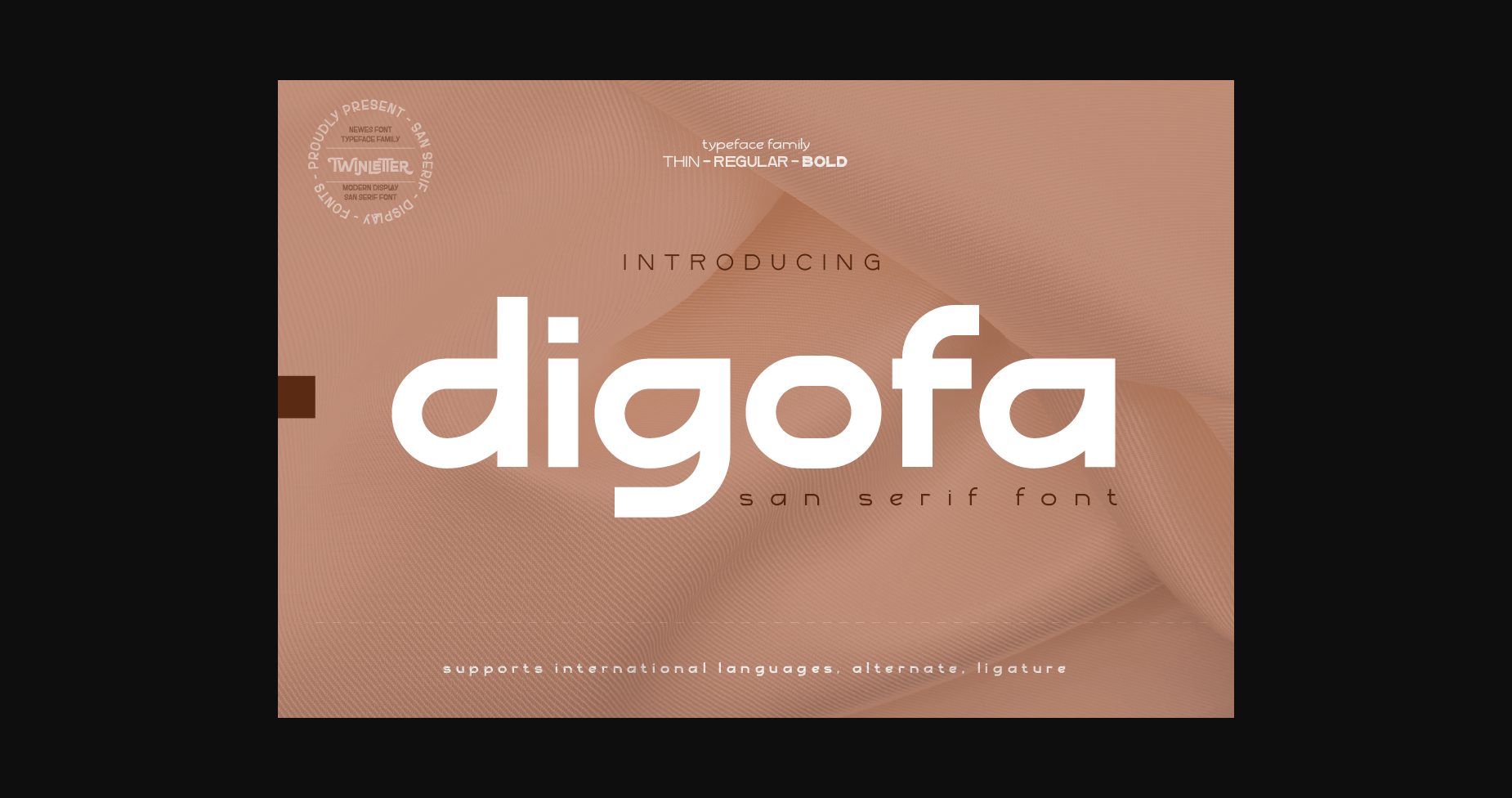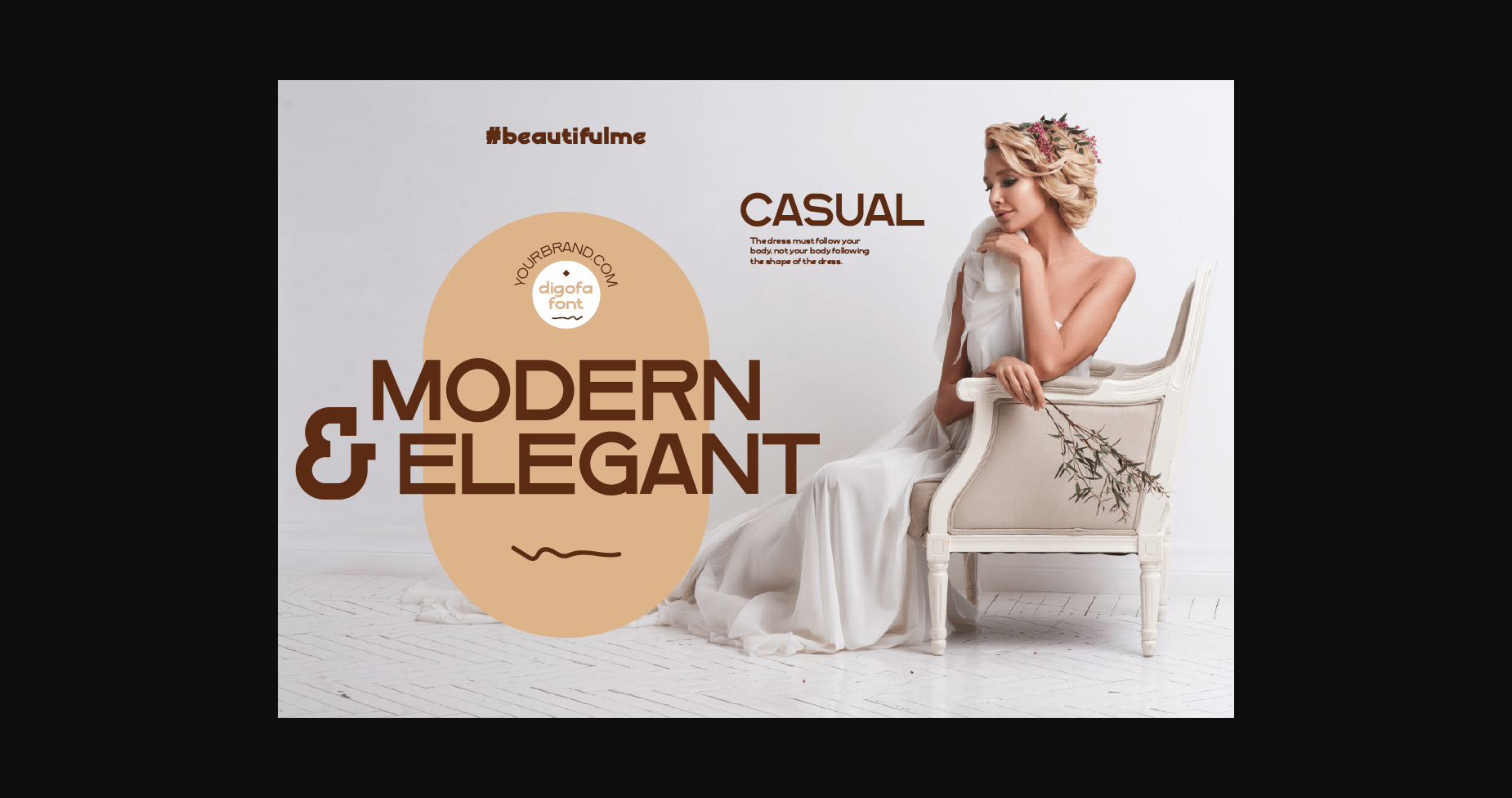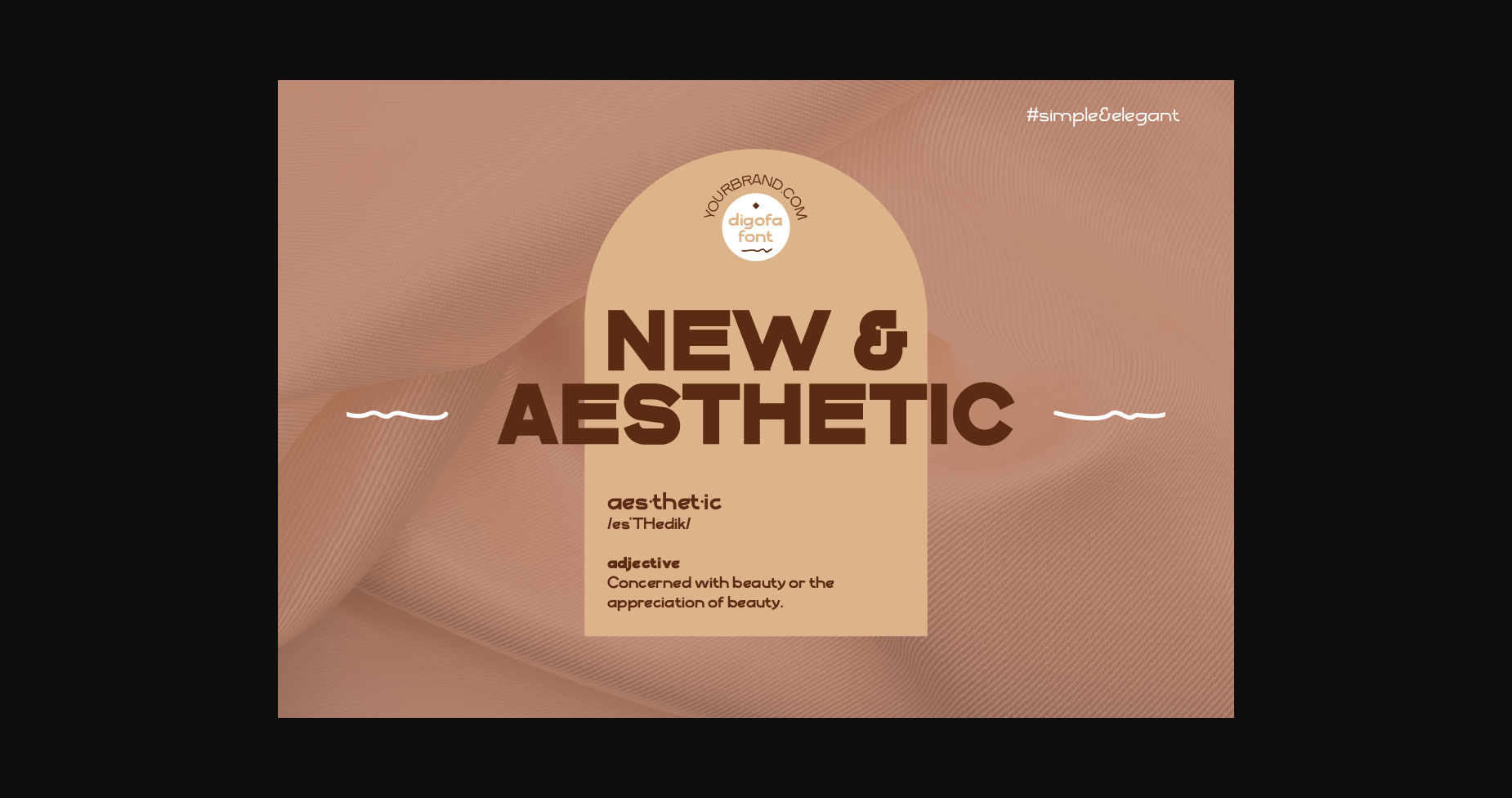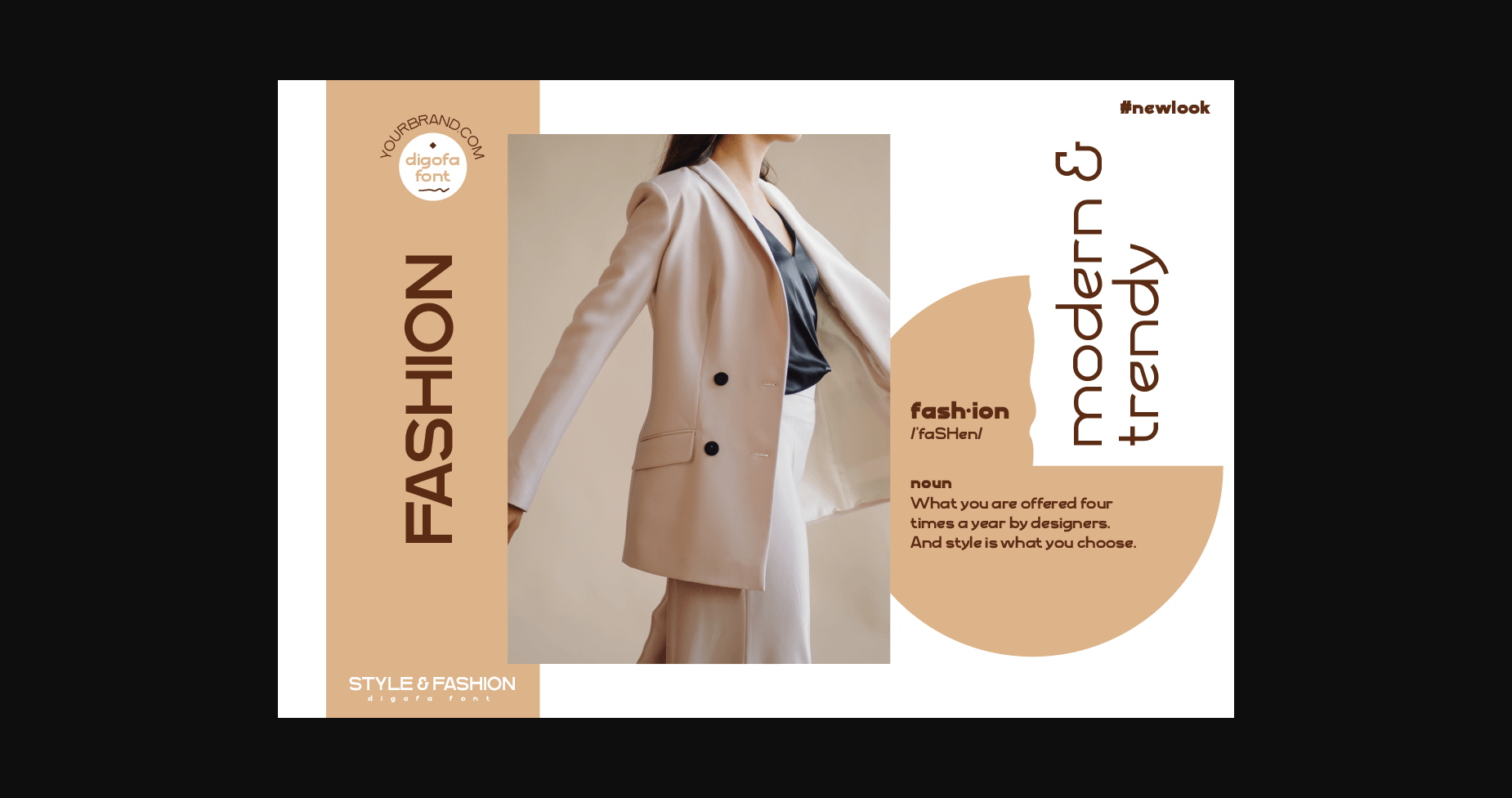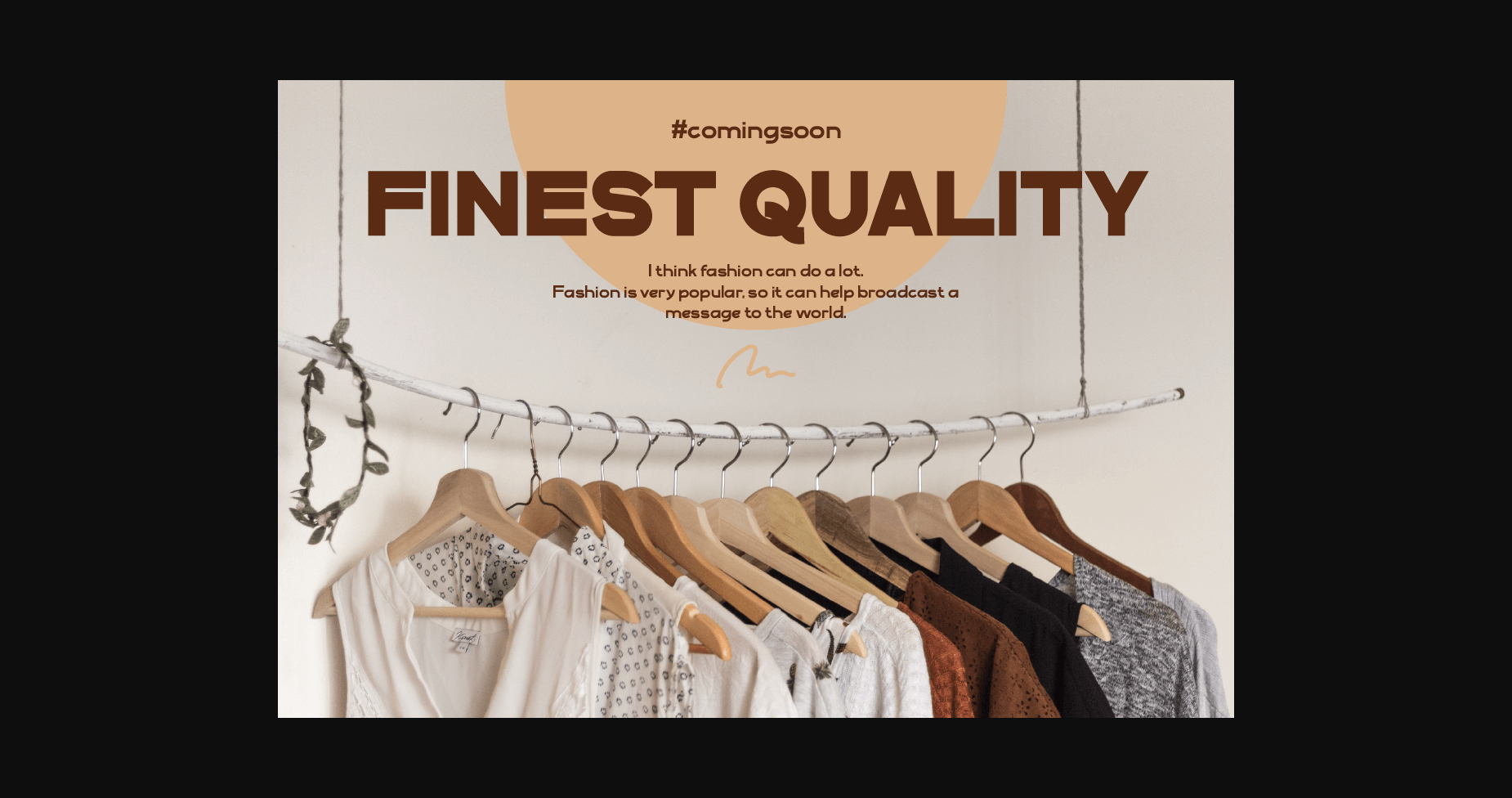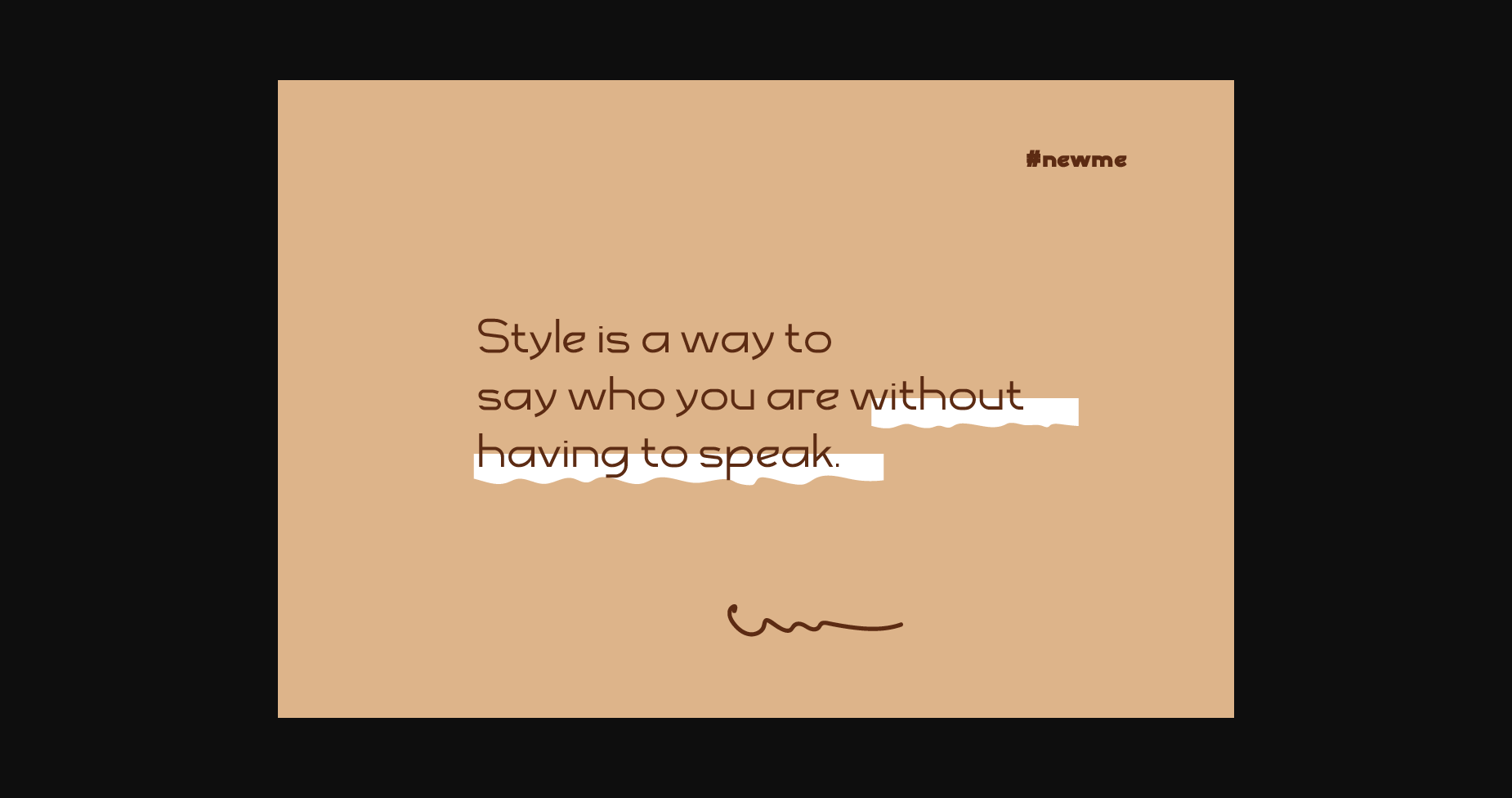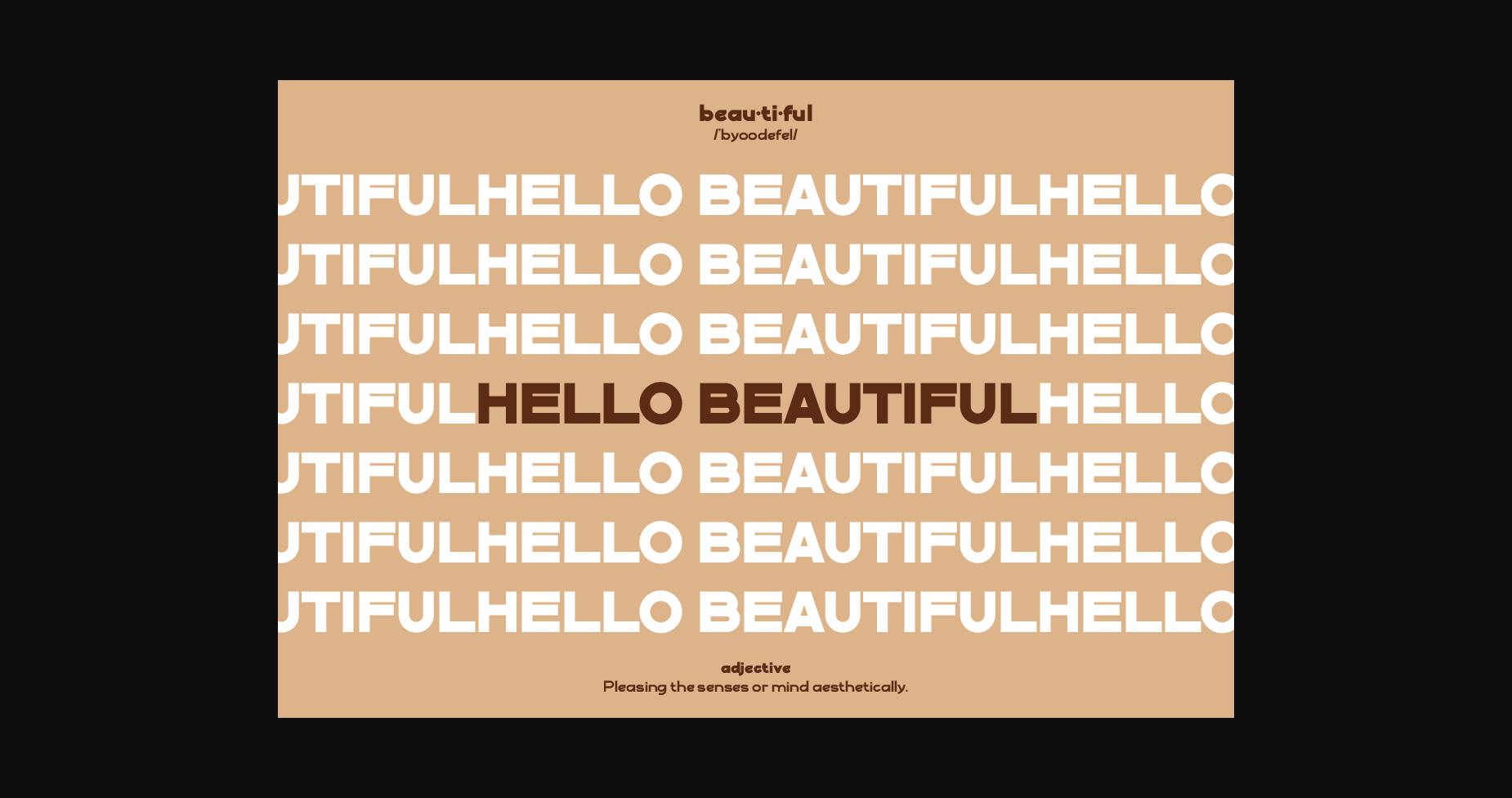
Digofa is a cool and neat sans serif font. This font is ideal for writing web designs, business cards, or pretty much anything else that requires a unique touch.